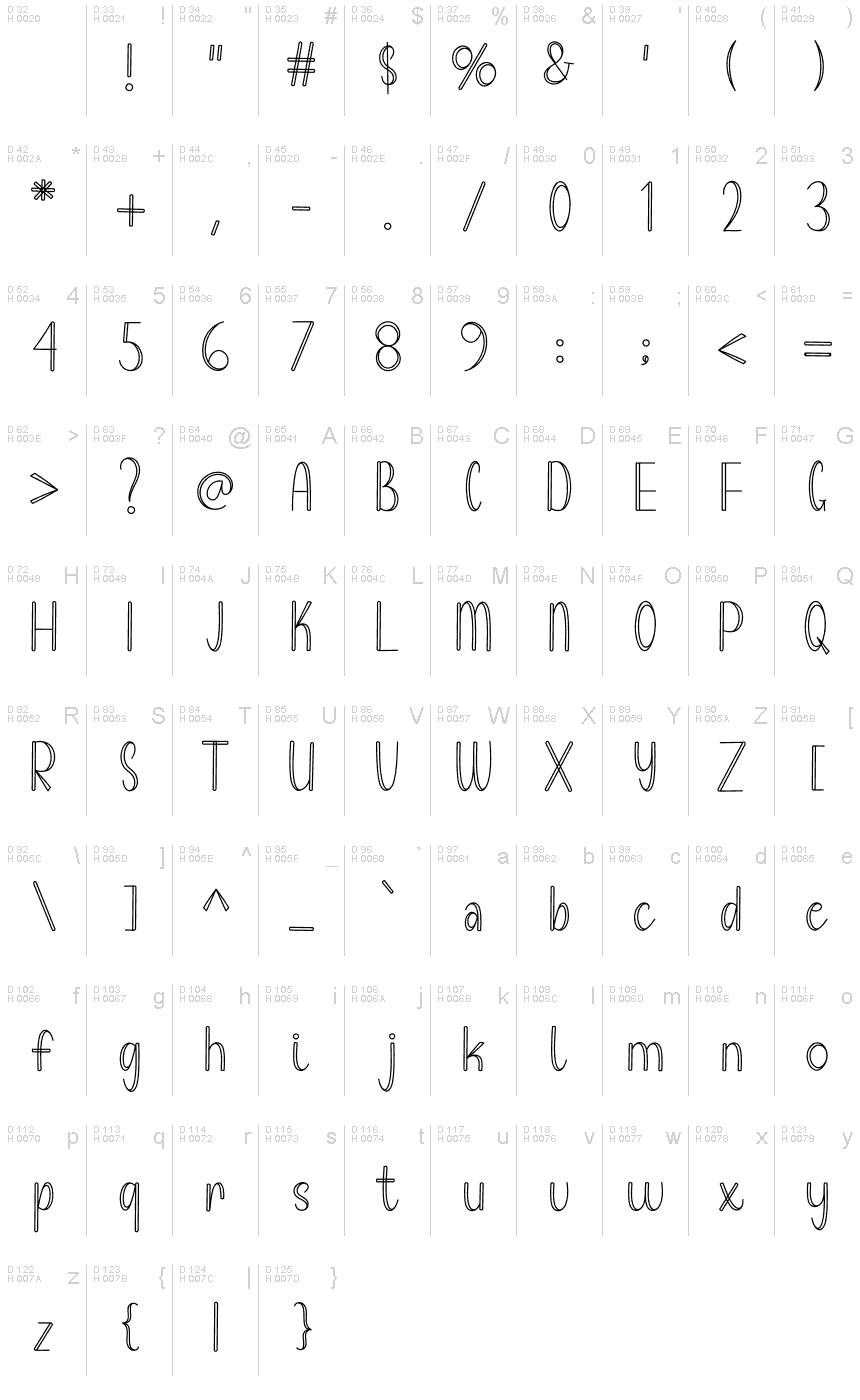
Writen Handmade
Writen Handmade is a beautiful semi-light outlined calligraphy font designed by Belina Studio. With its unique and handcrafted style, this font is perfect for projects that require a touch of elegance and sophistication. Its semi-condensed width makes it ideal for use in print designs such as invitations, greeting cards, and posters. Writen Handmade can also be used on websites, social media graphics, and branding materials to add a personal touch to your message. Whether you're working on a wedding invitation or creating an Instagram post, Writen Handmade will elevate your design to the next level with its charming handwritten appearance.
the latest style letters are perfect for wall displays, wedding invitations, social media post logos, advertisements, product packaging, product designs, labels, photography, watermarks, invitations, stationery, and any project that requires taste handwriting.